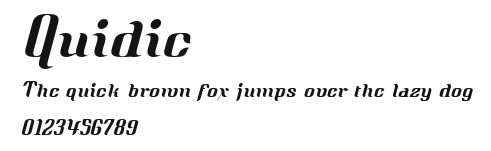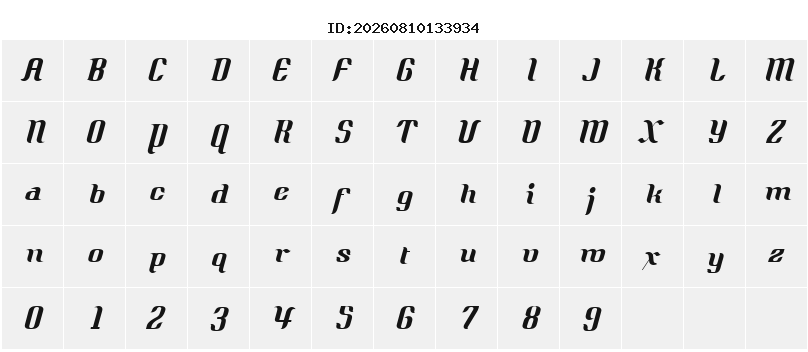
• Font Name: Quidic
• Full Font Name: Quidic Italic
About Quidic.ttf
Quidic.ttf is a modern, elegant sans-serif font designed for ultimate readability and visual harmony. Perfect for branding, headlines, web design, and print materials.